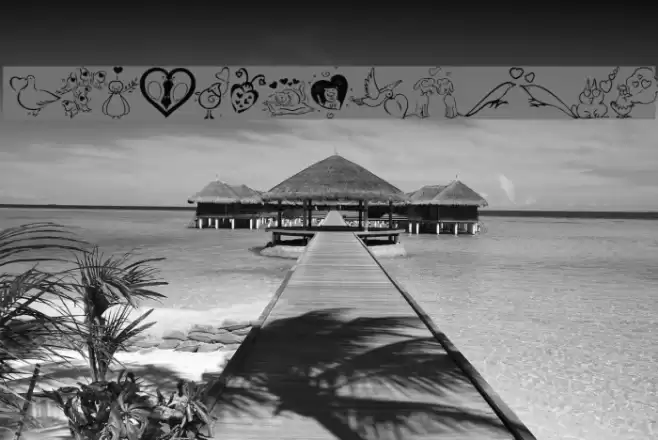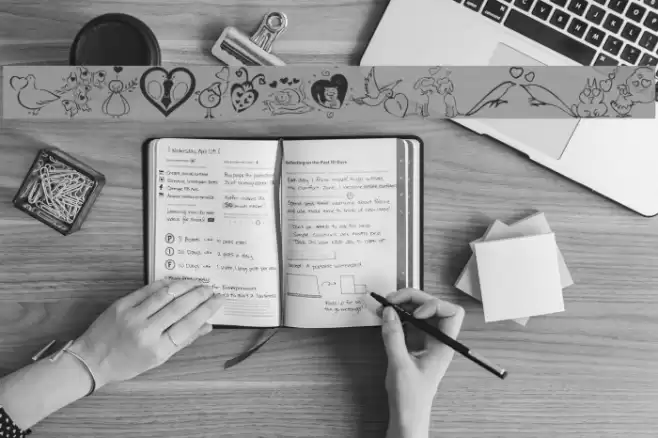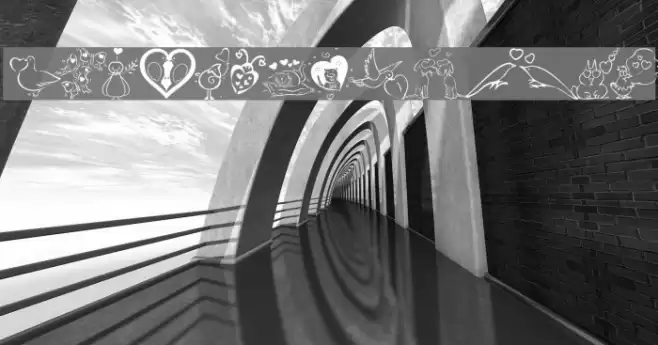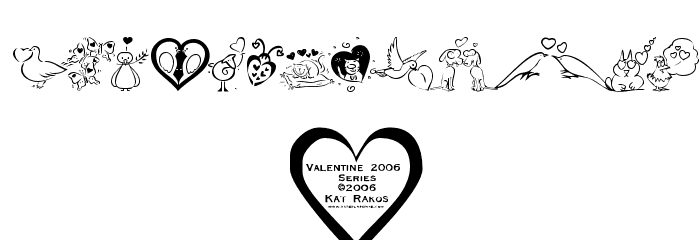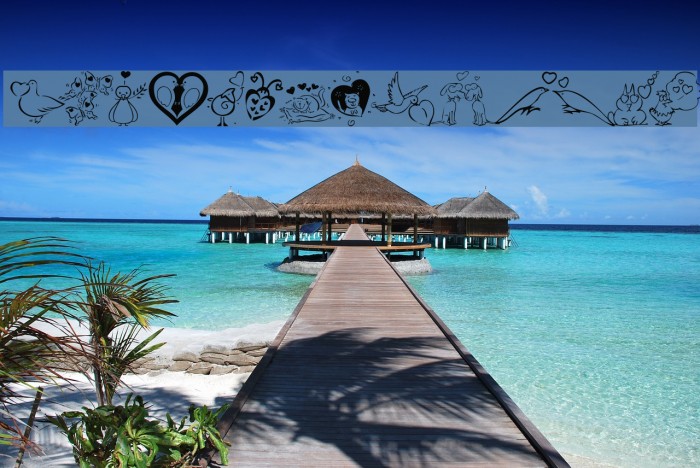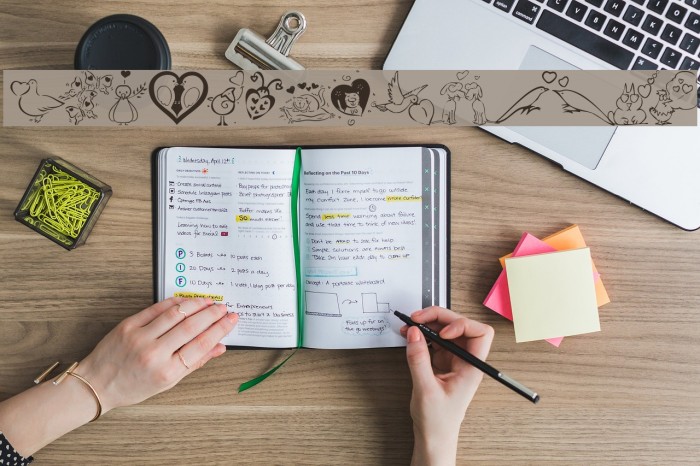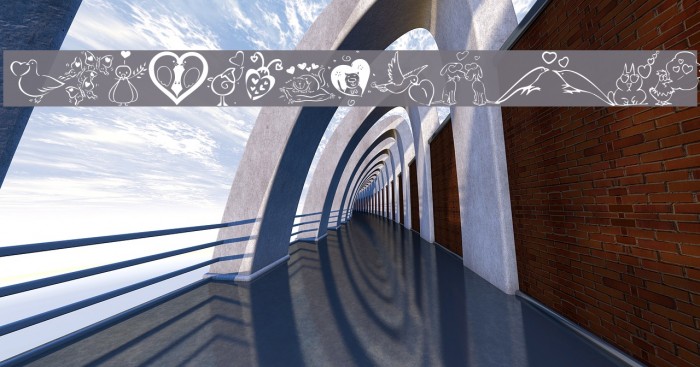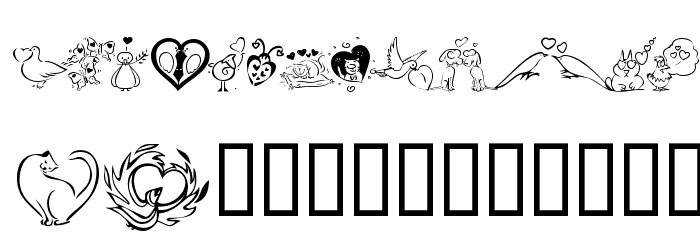
KR Valentines 2006 Three Font
KR Valentines 2006 Three Description
This is a decorative font featuring a series of whimsical and romantic illustrations. The designs include playful animals, hearts, and other love-themed elements, making it ideal for Valentine's Day projects. Each character is represented by a unique illustration, creating a charming and playful aesthetic. The style is light-hearted and fun, with a hand-drawn quality that adds a personal touch to any design.
A whimsical, love-themed decorative font with playful illustrations from Uncategorized fonts.
- Proposed Projects: Ideal for Valentine's Day cards, wedding invitations, romantic event posters, and any project that requires a playful and romantic touch.
- Use Case: Logos, Headlines, Decorative elements